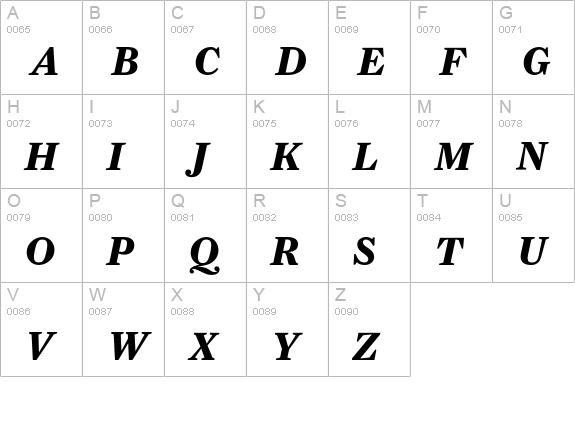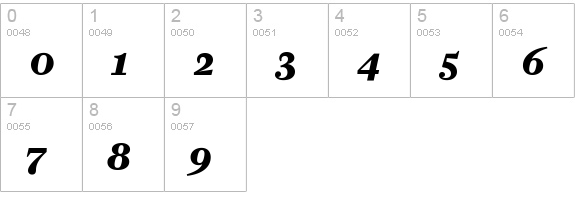
FarnhamText-BoldItal Font Details
FarnhamText-BoldItal is a beautifully designed font that exudes elegance and sophistication. Its bold and italicized style adds a touch of modernity to any project, making it perfect for headlines, titles, and other attention-grabbing text. The sleek curves and sharp angles of this font give it a unique and refined appearance that is sure to make a statement. And the best part? FarnhamText-BoldItal is available for free download at FontsMarket.com! This means that you can easily access this stunning font and use it in your designs without any cost. Whether you're working on a professional project or a personal creative endeavor, FarnhamText-BoldItal is a versatile and eye-catching choice that will elevate your work to the next level. Download it today and see for yourself the impact that this font can make on your designs.